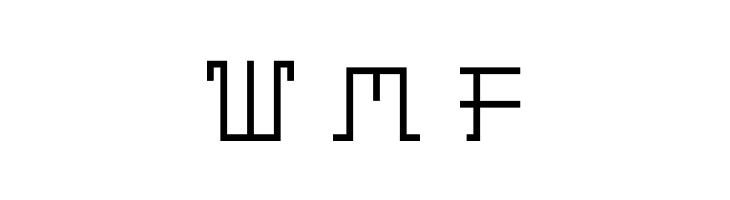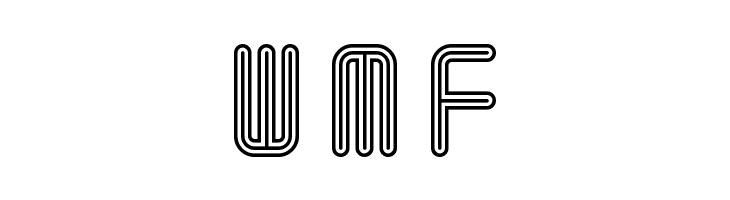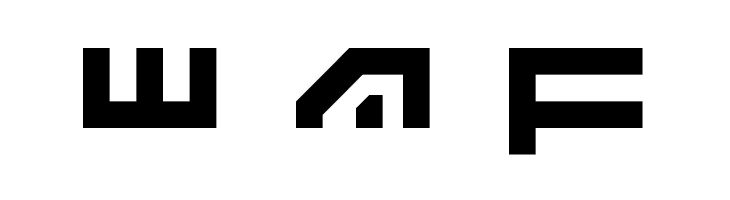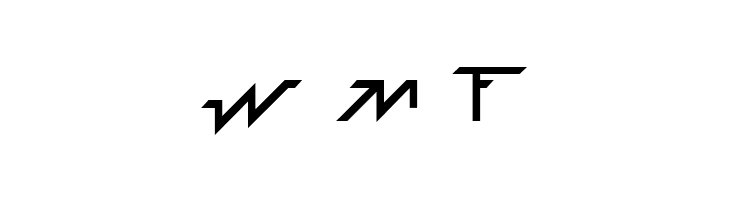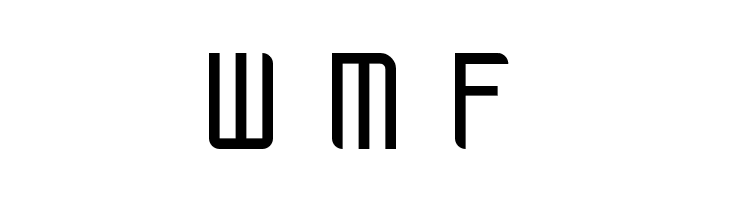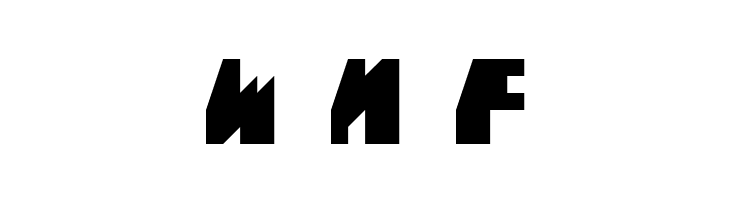
A bold, geometric font with a futuristic and industrial aesthetic.
A bold, angular font with a futuristic and edgy design.
A pixelated, retro font with a blocky, digital aesthetic.
A bold, geometric font with rounded edges and a sporty, modern look.
A bold, geometric font with angular, futuristic design elements.
A bold, geometric font with hollow interiors and a futuristic style.
A bold, angular font with intricate geometric patterns and a striking appearance.
A bold, geometric font with an industrial and architectural style.
A hollow, geometric font with a futuristic and minimalist design.
A modern, geometric font with a sleek, futuristic design.
A modern, geometric font with a futuristic and sleek design.
A bold, geometric font with a modern, digital aesthetic.
A bold, geometric font with sharp angles and a futuristic style.
A 3D keyboard keycap-style font with bold, uniform characters.
Playful, rounded sans-serif with bold outlines and geometric shapes.
A bold, geometric font with sharp angles and a futuristic feel.
A modern, geometric font with rounded edges and consistent stroke widths.
A modern, geometric font with clean lines and a minimalist design.
A modern, geometric font with rounded edges and a digital aesthetic.
A playful, rounded font with a friendly, balloon-like appearance.
A pixelated, edgy font with a retro digital aesthetic.
A geometric and angular font with a modern, edgy aesthetic.
A bold, geometric font with a futuristic and industrial style.
Minimal, outlined icon set with geometric shapes and consistent line weight.
A modern, geometric font with clean lines and a technical aesthetic.
A bold, geometric font with a futuristic and tech-inspired design.
A bold, geometric font with angular, arrow-like extensions for a futuristic look.
Minimal, hairline-weight geometric icon set.
A minimalist set of line-based icons with a modern and clean design.
A bold, rounded font with a playful and modern style.
A set of minimalist, line-based icons with a modern and clean design.
Bold, geometric, and modern icon set with high legibility.